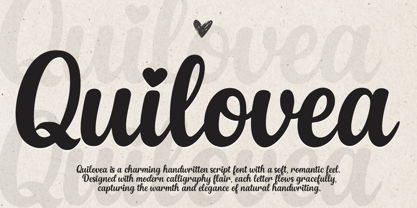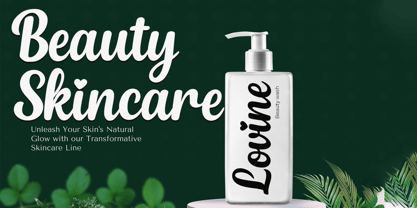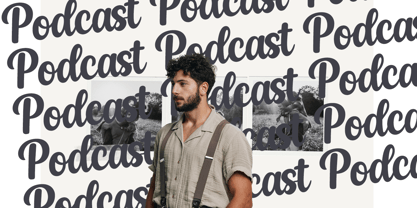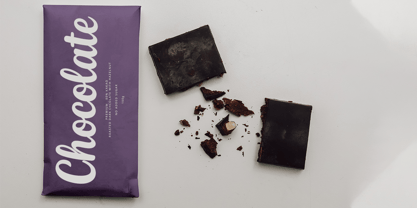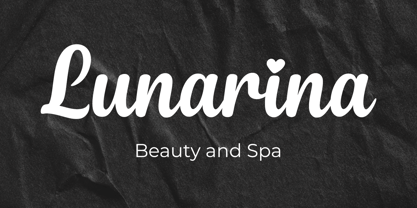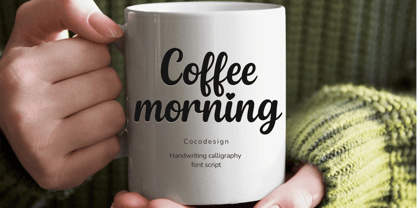
Quilovea
by Cocodesign
The Quilovea Font Family was designed by Muhammad Zaini and published by Cocodesign. Quilovea contains 1 styles. More about this family
Quilovea is a charming handwritten script font with a soft, romantic feel. Designed with modern calligraphy flair, each letter flows gracefully, capturing the warmth and elegance of natural handwriting. A signature heart-shaped dot on the letter “i” adds a playful and feminine touch.
Perfect for designs that need a personal, delicate, and stylish vibe, Quilovea is ideal for:
• Beauty and fashion branding
• Wedding invitations & greeting cards
• Personal logos & watermarks
• Aesthetic social media content
Let Quilovea bring love and beauty into every stroke.
Designers: Muhammad Zaini
Foundry: Cocodesign